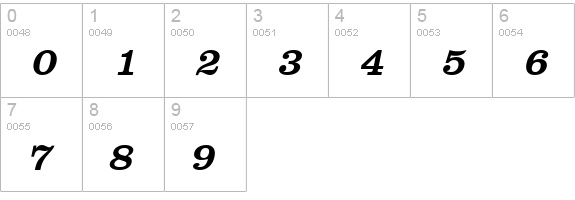
Clare Italic Font Details
Clare Italic is a distinctive, italic variant in the Clare typeface family \xE2\x80\x94 well suited to design and typography projects.
Introducing Clare Italic font - a modern and elegant typeface designed for adding a touch of sophistication to your projects. The graceful curves and delicate lines of Clare Italic exude a sense of refinement and style, making it perfect for a wide range of design applications. Whether you're creating wedding invitations, branding materials, or editorial layouts, Clare Italic will elevate your work with its timeless charm. What's even better is that Clare Italic is available for free download at FontsMarket.com. Yes, you read that right - this stunning font can be yours at no cost, allowing you to bring a touch of luxury to your designs without breaking the bank. Don't miss out on this opportunity to enhance your projects with the beauty of Clare Italic. Download it today and start creating with style and sophistication.